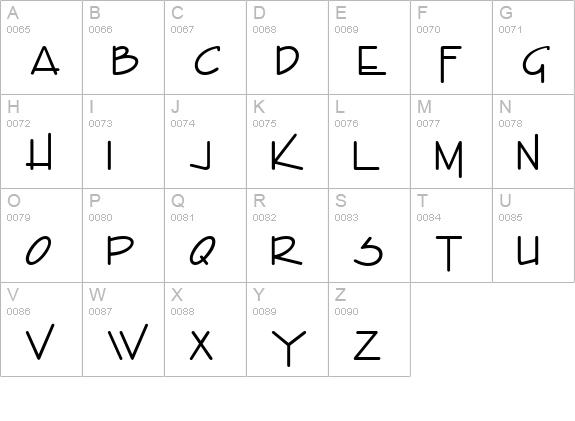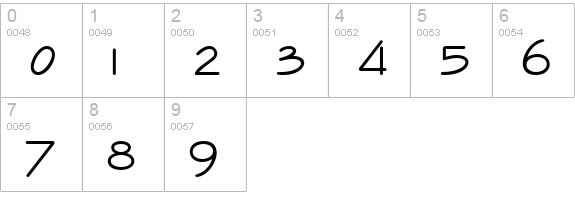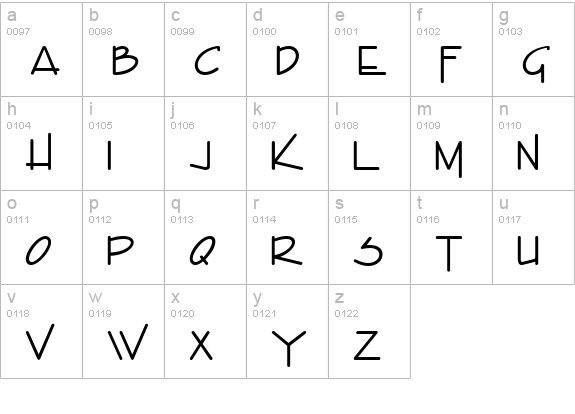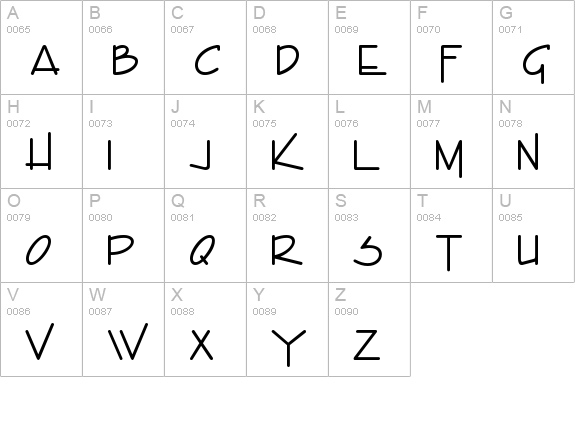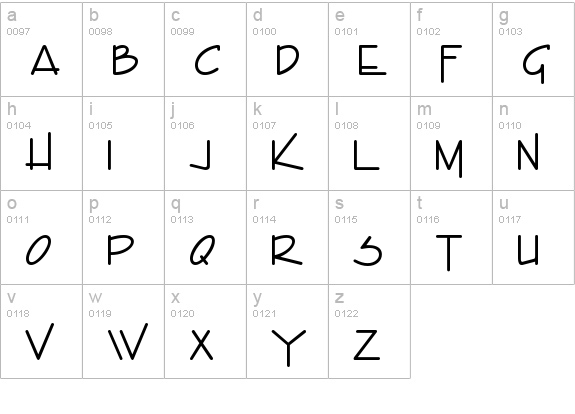
Envision Font Details
Envision font is a modern and elegant typeface that exudes sophistication and creativity. With its sleek lines and stylish curves, Envision captures attention and adds a touch of class to any design project. Whether used for branding, editorial design, or signage, this versatile font is sure to make a lasting impression. The best part? Envision font is completely free to download at FontsMarket.com. That's right, you can easily access this stunning typeface without spending a dime. So why wait? Elevate your designs with Envision font today and let your creativity soar!